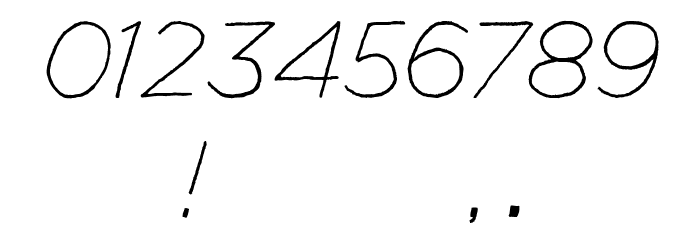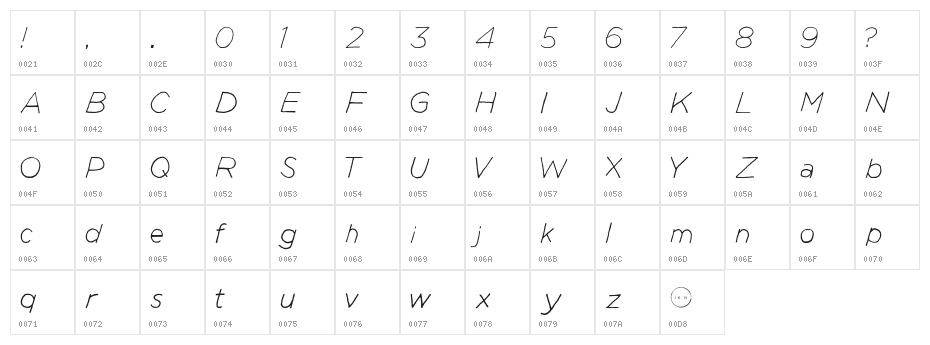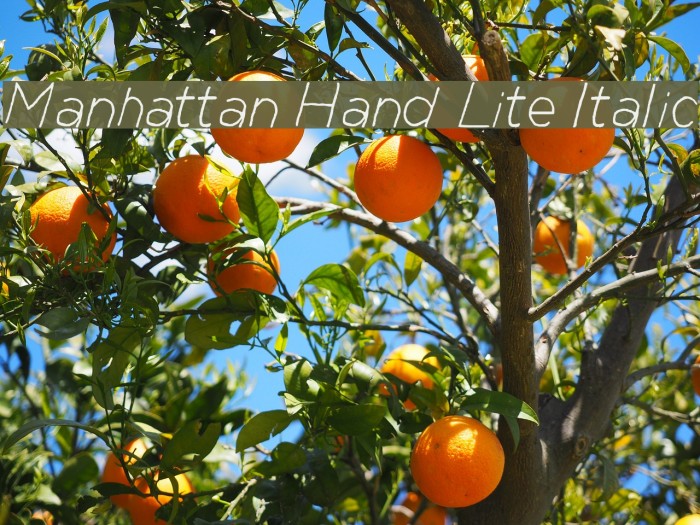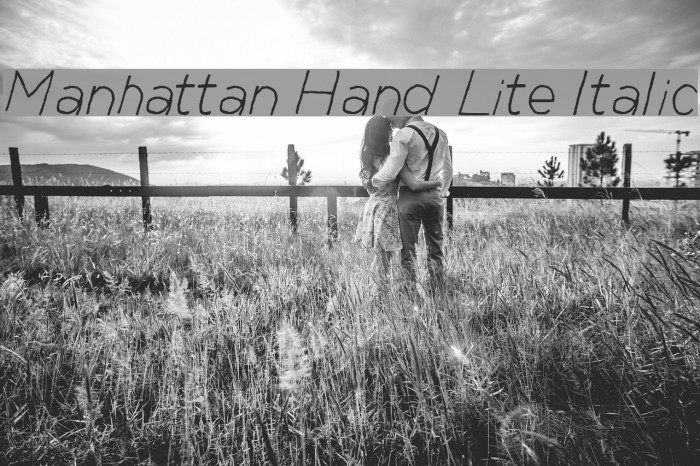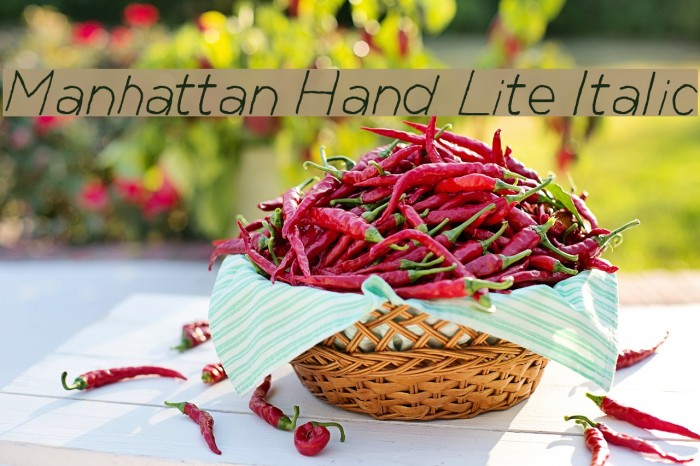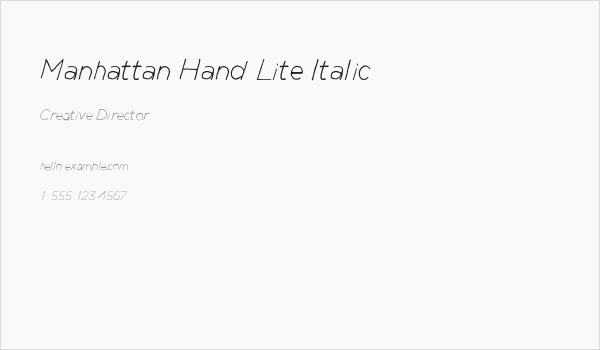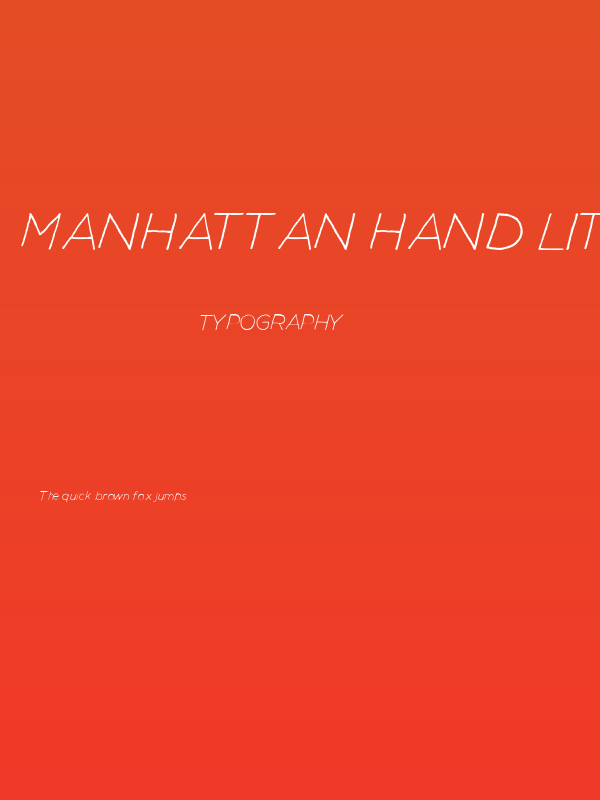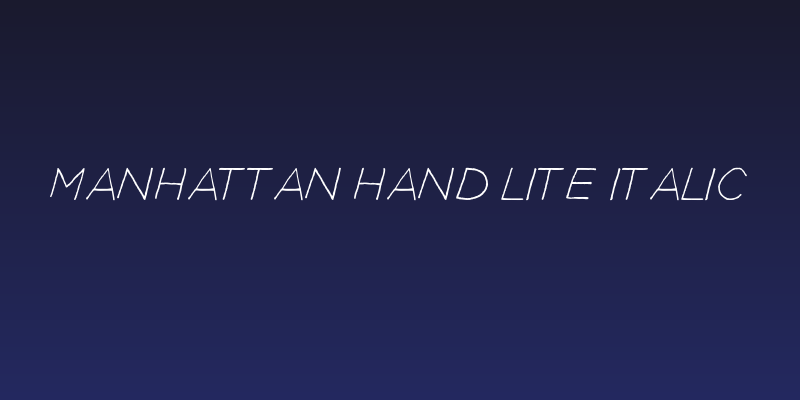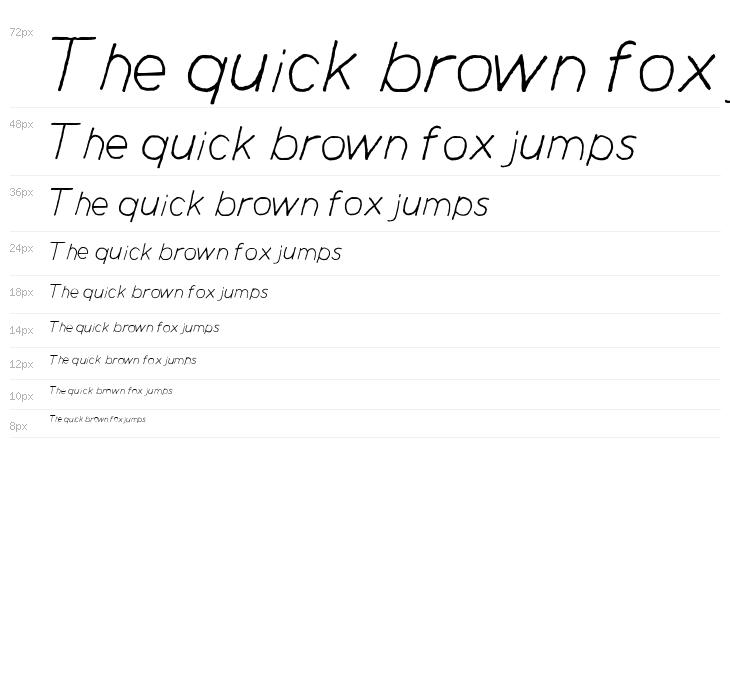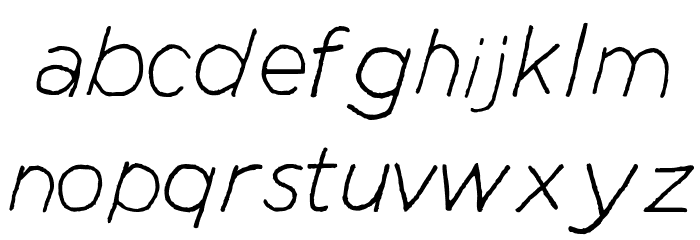
Manhattan Hand Lite Italic Font
Manhattan Hand Lite Italic Description
This font exhibits a sleek, handwritten style with a light and airy feel. The characters are slightly slanted, giving it an elegant italic appearance. The strokes are consistent and smooth, with a delicate touch that adds a sense of sophistication. The uppercase letters are tall and narrow, while the lowercase letters maintain a balanced proportion, enhancing readability. The numerals are clear and distinct, matching the overall aesthetic. This font's minimalistic design makes it versatile for various applications.
| Use Case | Logos, Invitations, Personal branding |
| Proposed Projects | Ideal for wedding invitations, personal branding, elegant stationery, and artistic projects. |